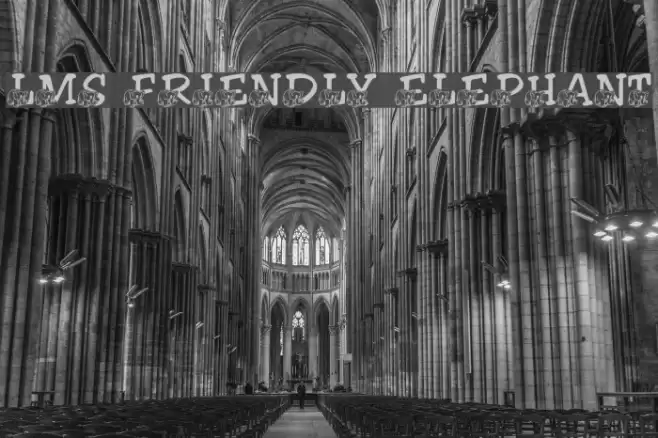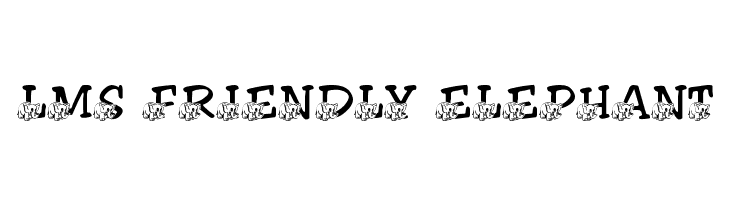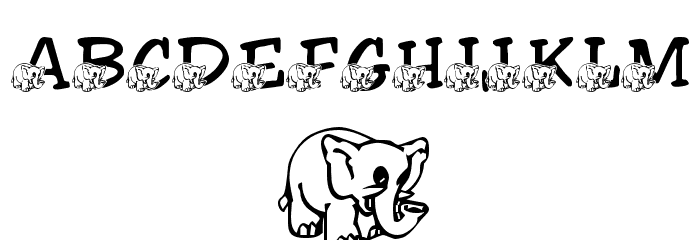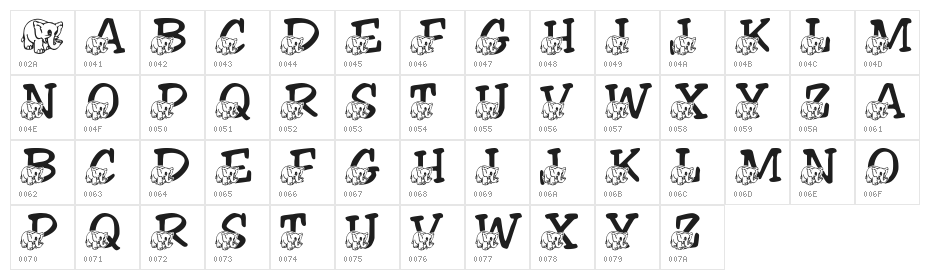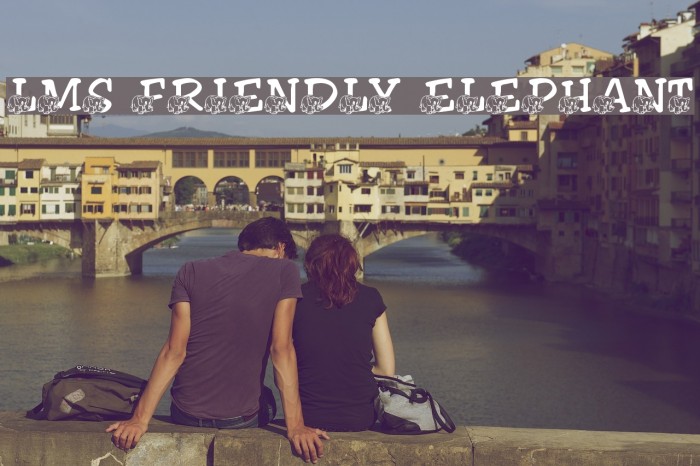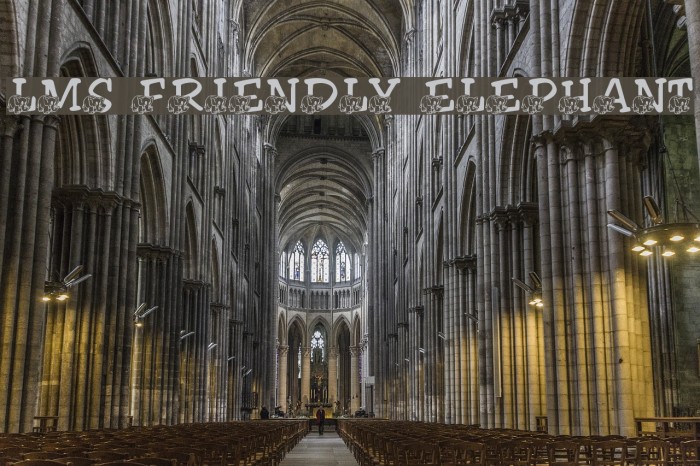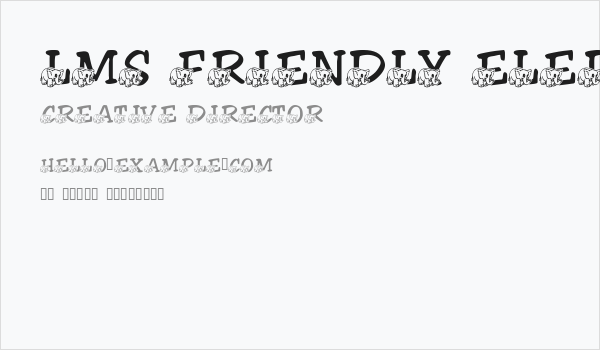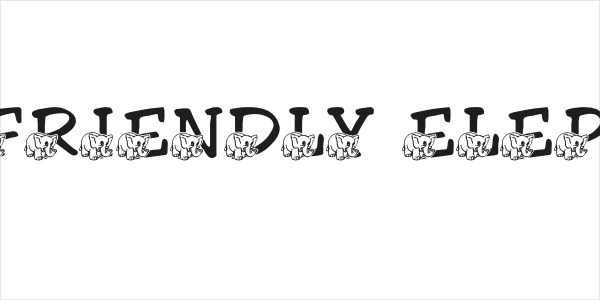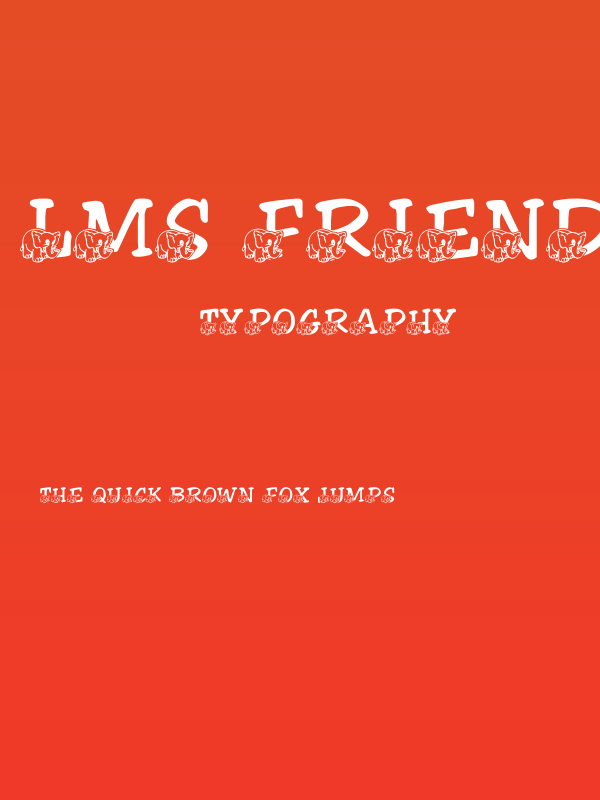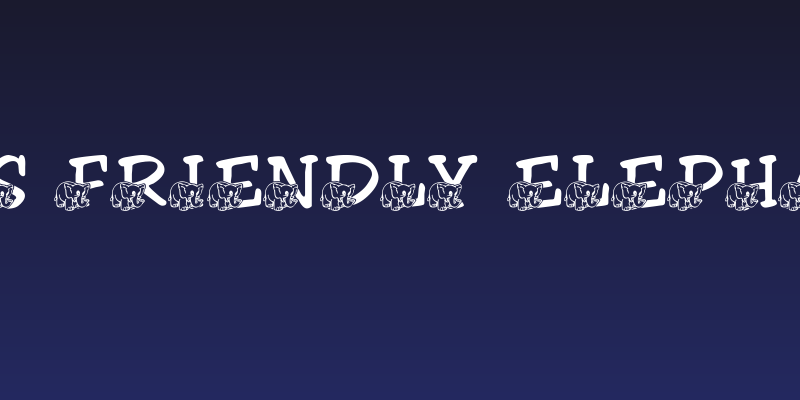
LMS Friendly Elephant Font
LMS Friendly Elephant Description
This playful and whimsical font features bold, uppercase letters accompanied by charming elephant illustrations. Each letter is designed with a thick, solid stroke that gives it a strong presence, while the elephants add a touch of fun and creativity. The font is perfect for projects that require a lighthearted and engaging style, such as children's books, educational materials, or playful branding. The elephants are consistently placed alongside each letter, creating a unique and cohesive look. The font's boldness ensures readability, while the decorative elements make it stand out.
A bold, playful font with elephant illustrations accompanying each letter from Uncategorized fonts.
- Proposed Projects: Ideal for children's books, playful branding, educational materials, and creative posters.
- Overall Style: Playful, Whimsical